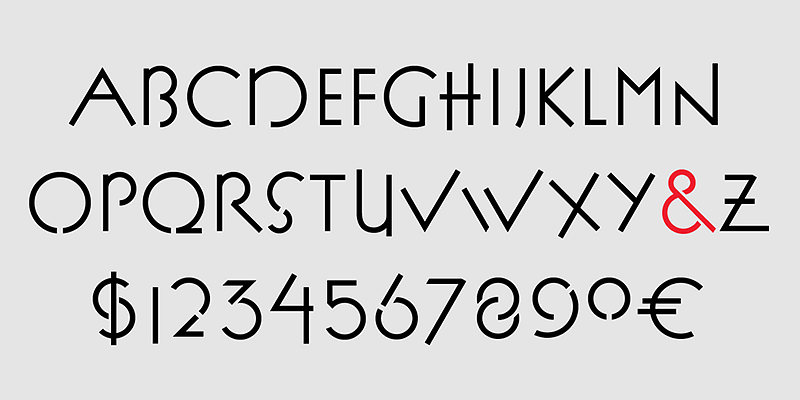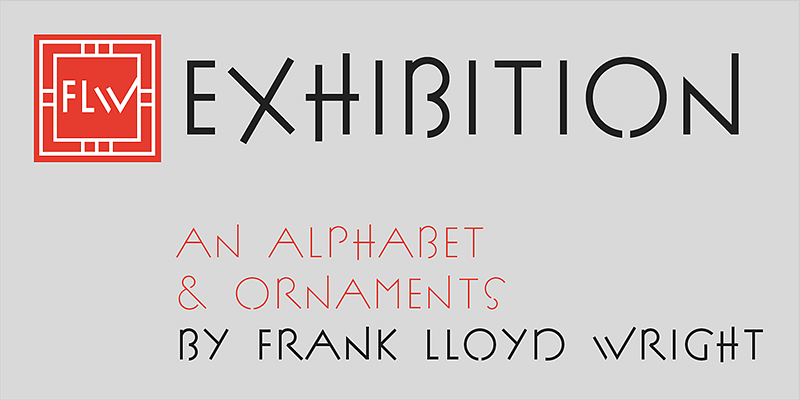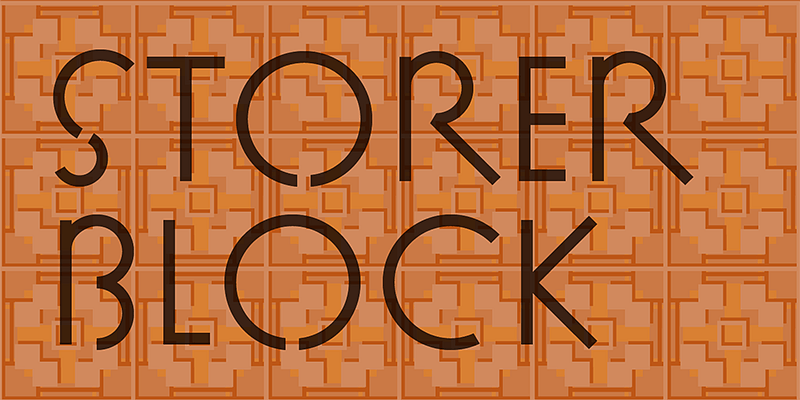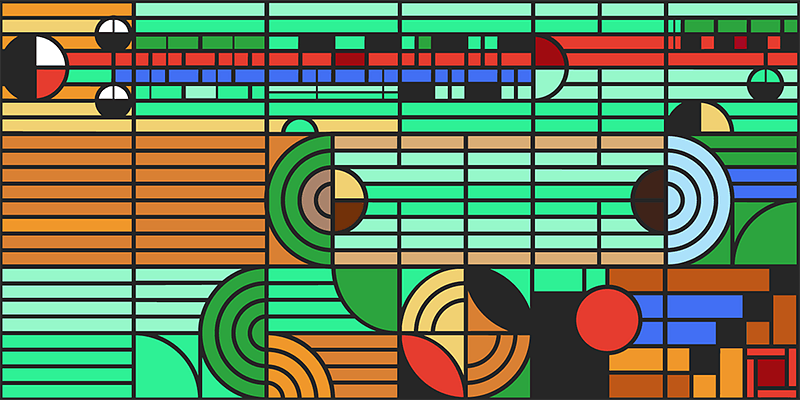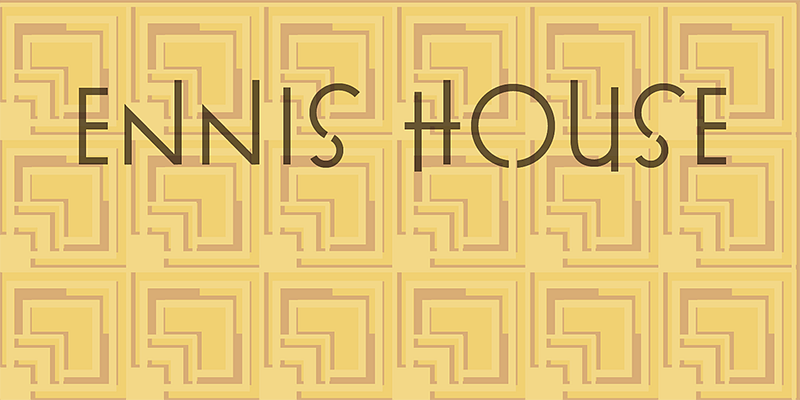
P22 FLW Exhibition was lettered by Frank Lloyd Wright in 1931 and was intended primarily to accompany Frank Lloyd Wright’s exhibition drawings and models.